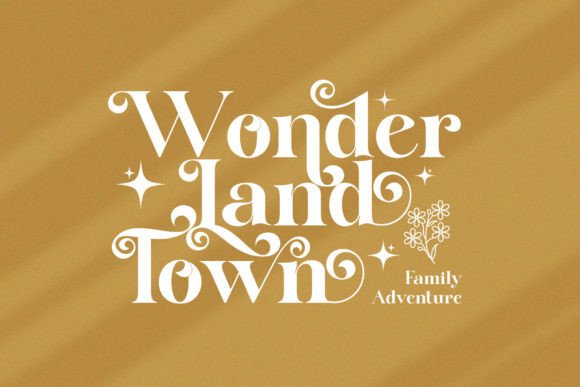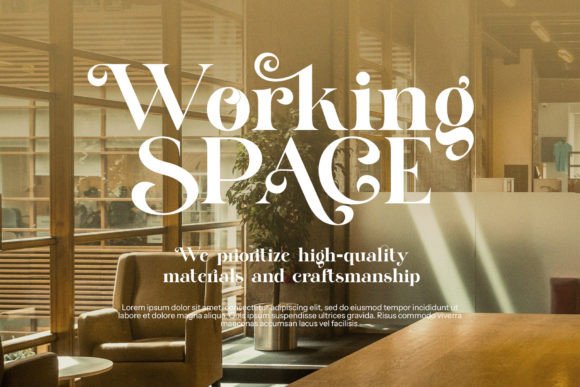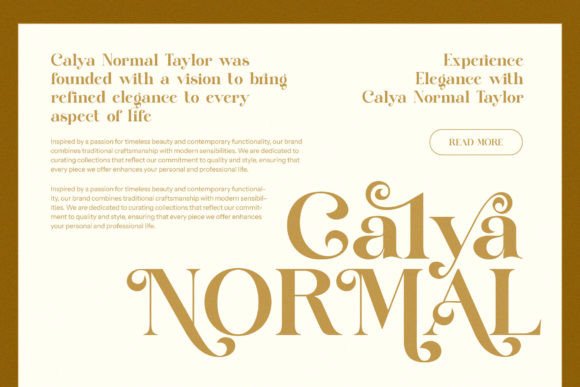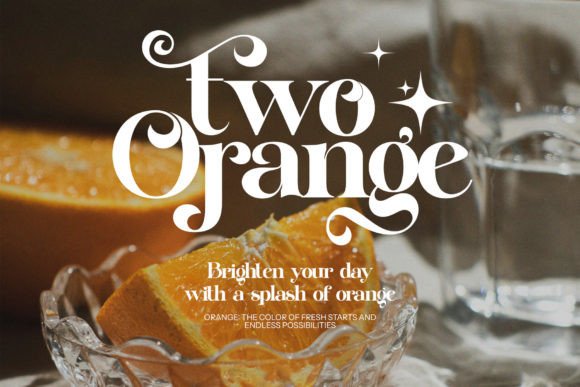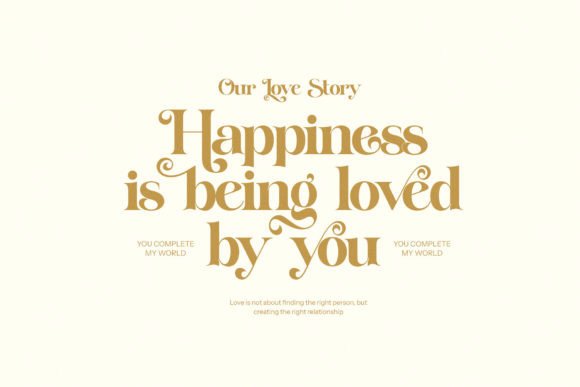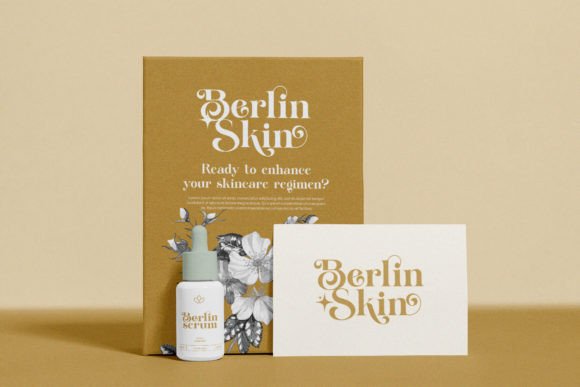
Introducing Baglin Font: Elevate Your Designs with Elegance and Luxury
In the world of typography, a font can make or break a design. For designers and crafters seeking to add a touch of sophistication and luxury to their projects, look no further than the Baglin font. This stunning serif font is crafted with elegance in mind, making it perfect for a wide range of design applications.
The Characteristics of Baglin Font
Baglin font is a serif typeface that exudes refinement and luxury. Its classic design ensures that it remains highly legible, even at smaller sizes, making it suitable for various projects that demand high readability. What sets Baglin apart, however, are its beautiful and unique ligature and alternate options. These features allow designers to add a personal touch to their work, creating bespoke designs that stand out from the crowd.
One of the key benefits of the Baglin font is its versatility. Whether you’re working on branding projects, logos, social media posts, advertisements, labels, product packaging, photography, wedding designs, watermarks, invitation product designs, stationery, or any high-end project, Baglin is up to the task. Its elegant appearance and high readability level make it an excellent choice for projects that require a touch of luxury and sophistication.
For designers and crafters, finding the right font can be a challenge. Baglin font offers a solution that caters to a wide range of design needs. Its comprehensive feature set, including ligatures and alternates, provides the flexibility needed to create unique and captivating designs. Whether you’re creating visual content for digital platforms or crafting bespoke stationery, Baglin ensures that your work looks professional and elegant.
Enhance Your Branding with Baglin
Branding is about creating a lasting impression, and typography plays a crucial role in this process. The Baglin font, with its luxurious and elegant appearance, can significantly enhance your brand’s visual identity. Its unique ligatures and alternates allow for the creation of custom wordmarks and logotypes that can set your brand apart from competitors.
Baglin in Digital and Print Media
Baglin’s versatility extends to both digital and print media. For digital applications such as social media posts, website headers, and email newsletters, Baglin’s clear and elegant design ensures that your message is conveyed with style and sophistication. In print, it shines in high-end brochures, luxury product packaging, and wedding stationery, adding a touch of class to any material.
Tips for Using Baglin Font Effectively
- Experiment with Ligatures and Alternates: Take full advantage of Baglin’s unique features to add personality to your designs.
- Pair it Wisely: Combine Baglin with complementary fonts to create visual interest and hierarchy in your designs.
- Consider the Context: Ensure that Baglin aligns with the tone and style of your project, whether it’s luxurious, elegant, or sophisticated.
The Baglin font is a powerful tool for designers and crafters looking to infuse their projects with elegance and luxury. Its combination of classic serif design, beautiful ligatures, and alternate options makes it a versatile and valuable addition to any design toolkit. Whether you’re working on high-end branding, bespoke stationery, or luxury product packaging, Baglin is equipped to meet your design needs with style and sophistication.
Elevate your designs with the Baglin font and discover a world of typographic luxury at your fingertips.